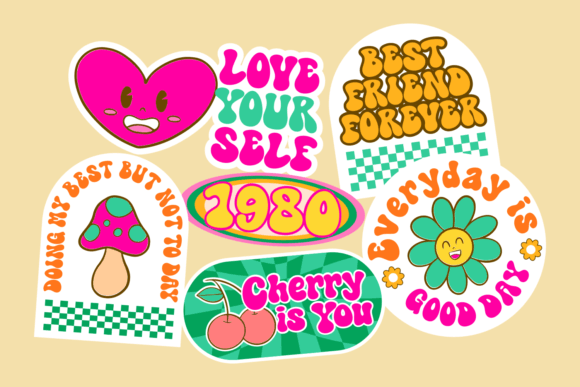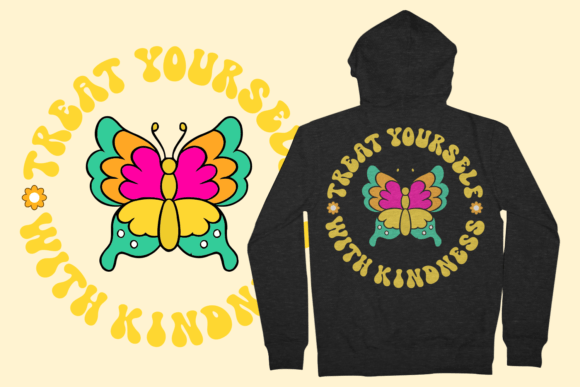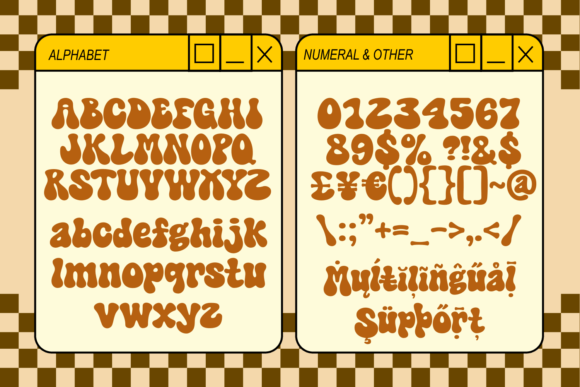
Standy Retro Font
Standy Retro is a fun and groovy font that takes you back to the funky and vibrant styles of the past. Inspired by the psychedelic era and the disco fever, this font features bold curves, playful swirls, and a touch of nostalgia. Its whimsical and energetic design captures the essence of the retro era, making it perfect for adding a touch of groovy nostalgia to your designs, posters, or party invitations.